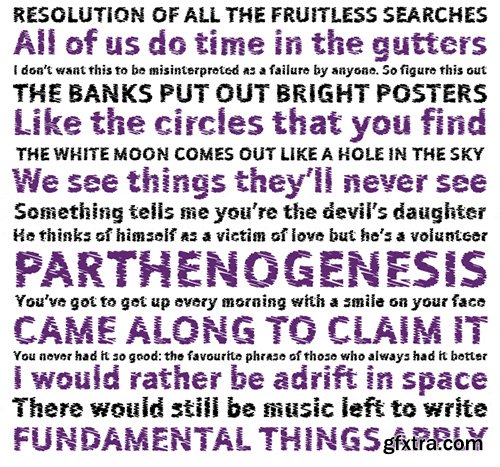
Sewn - Mechanically Embroidered Fonts $108
- Sewn is a mechanically embroidered font in four sizes: small, medium, large & extra-large. Smaller sizes have heavier thread and less stitches. The OpenType format feautures autoligs which automatically swap common letter pairs with variations to create a more realistic, less repetetive effect.